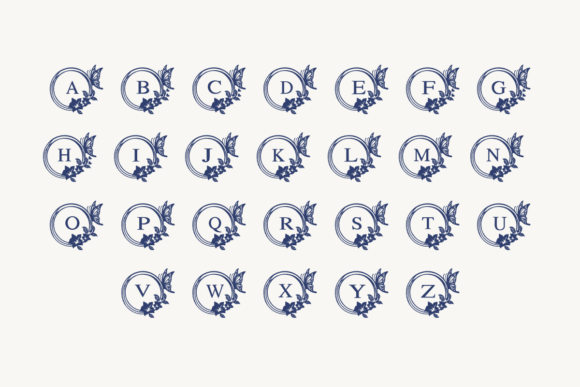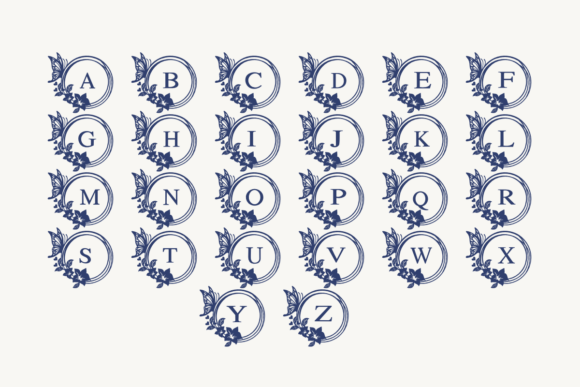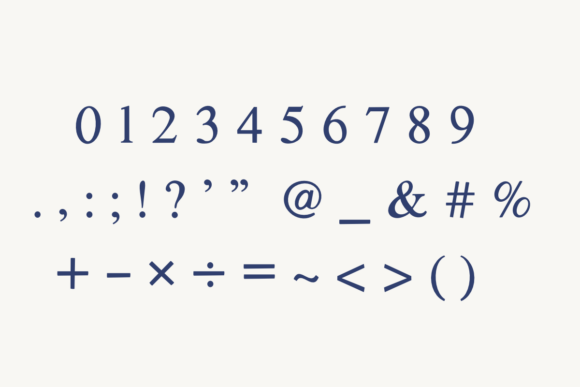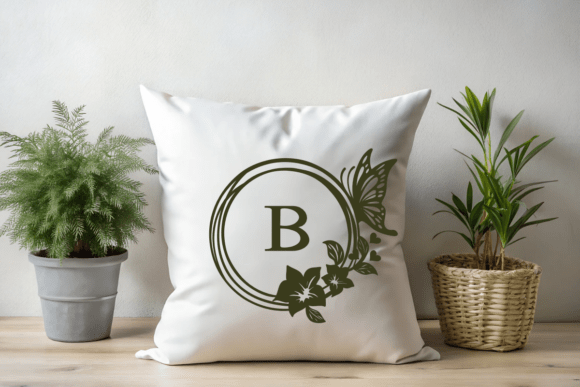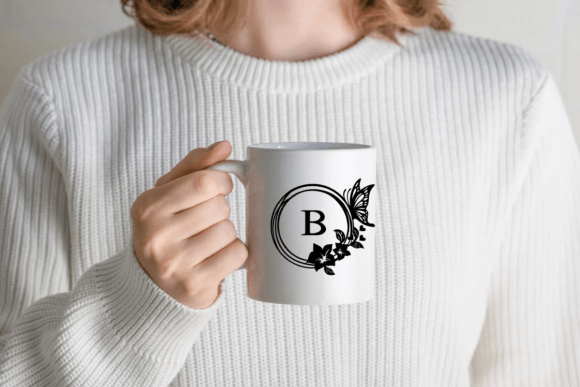
Introduction to Love Floral Butterfly Font
Love Floral Butterfly is a lovely decorative font.
Add it to your creative projects, and you will love the results .
Key Features of Love Floral Butterfly Font
Why Choose Love Floral Butterfly Font?
Love Floral Butterfly Font offers exceptional quality and versatility, making it a valuable addition to your design toolkit. Whether you’re creating for personal projects or commercial use, Love Floral Butterfly Font delivers professional results.